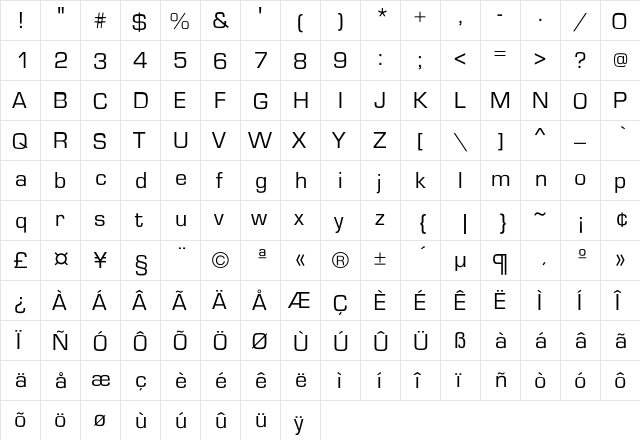
Ultra Vertex22 Regular
Design Context for Ultra Vertex22 Typeface
Ultra Vertex22 offers clean, dependable letterforms without strong stylistic allegiance, making it a practical choice for designers who need flexibility.